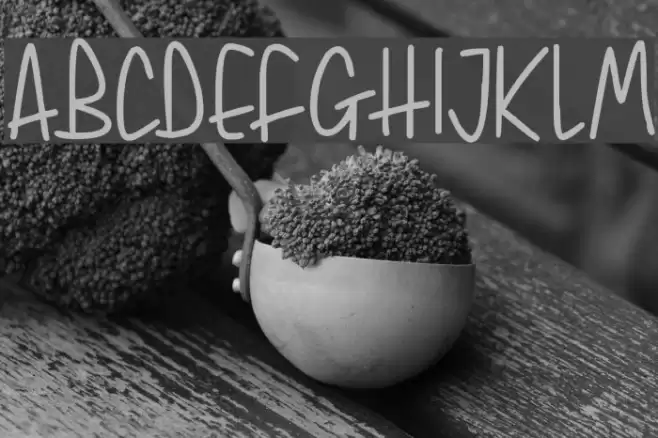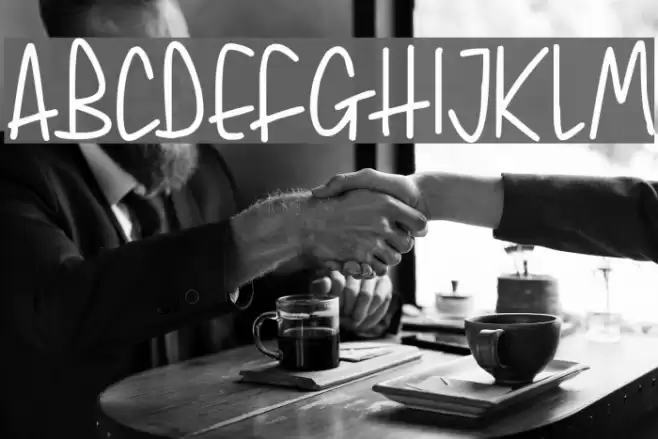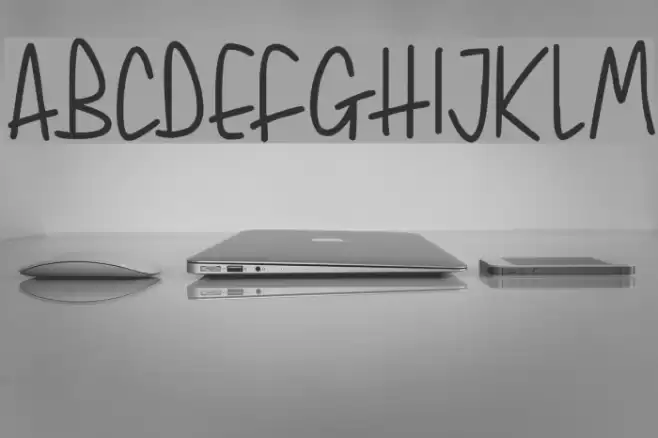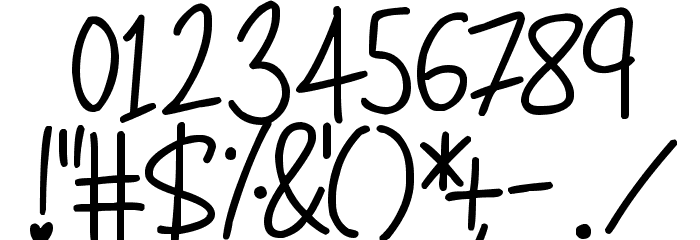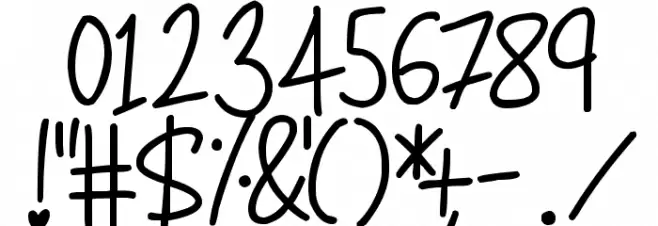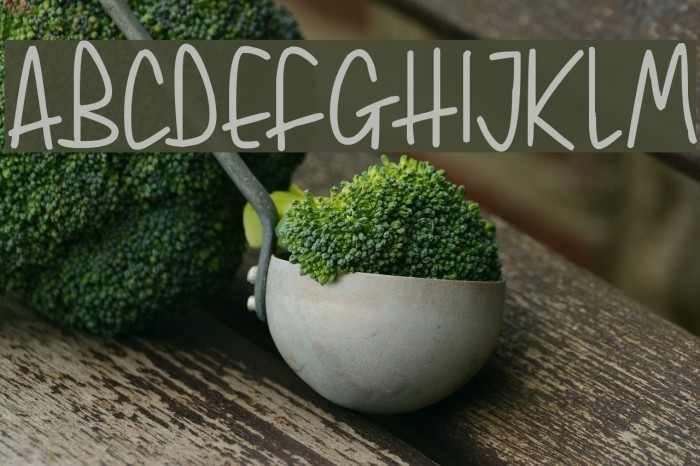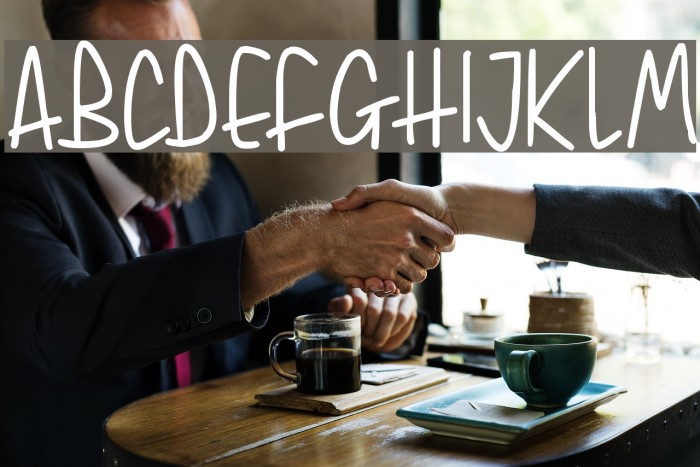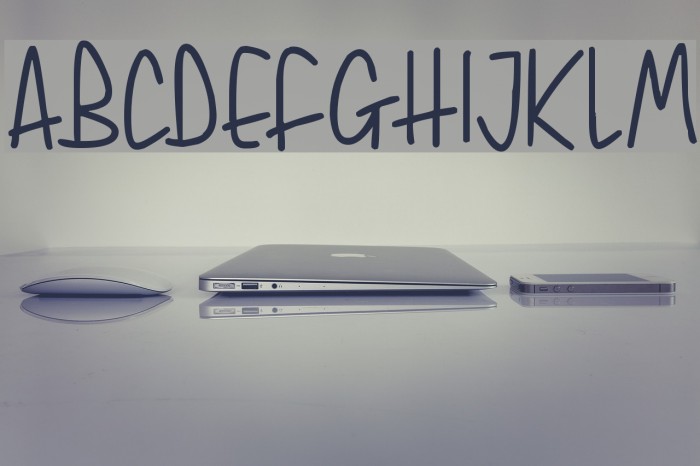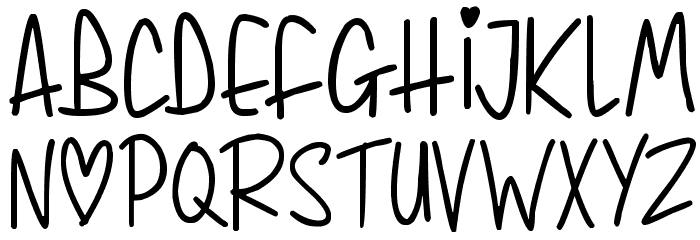
Whimsical Lovelies Font
Whimsical Lovelies Description
This playful and whimsical font features a handwritten style with a casual and friendly appearance. The letters are slightly irregular, giving it a personal touch, reminiscent of a child's handwriting or a fun doodle. The uppercase and lowercase letters maintain a consistent flow, with rounded edges and a slight tilt, adding to its charm. The numbers and special characters are equally playful, with some characters incorporating heart shapes, enhancing the font's whimsical nature. This font is perfect for projects that require a lighthearted and informal tone.
A playful, handwritten font with a whimsical and friendly style from Uncategorized fonts.
- Proposed Projects: Ideal for children's books, greeting cards, playful branding, and casual invitations.
- Overall Style: Whimsical
- Use Case: Headlines, Logos, Informal Text